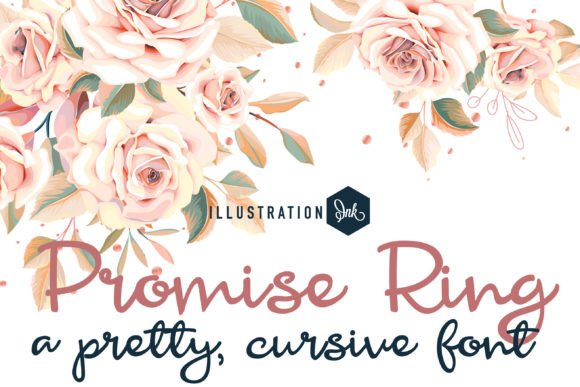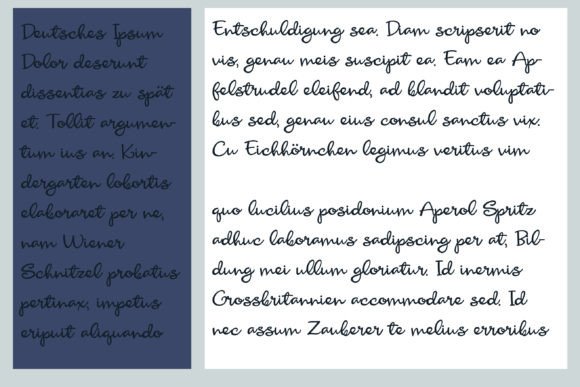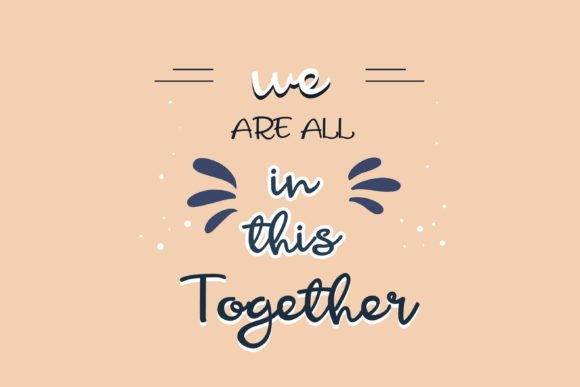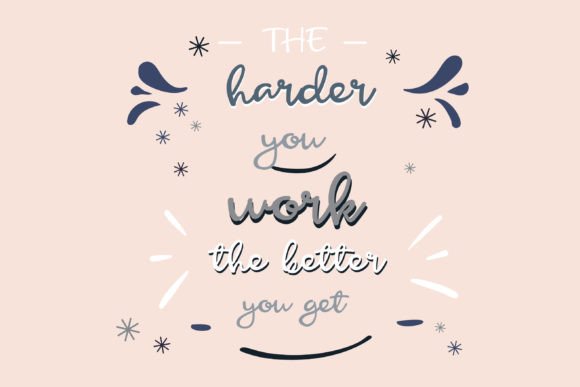
Promise Ring Font
About the Promise Ring Font
Introducing the Promise Ring Font, a beautifully crafted typeface designed to elevate your creative projects. This hand-written font is a pretty cursive with a bit of a casual feel. No matter the topic, this font will be an incredible asset to your fonts’ library, as it has the potential to elevate any creation.
Bold, Light, Stencil, and Highlighted versions are included.
Promise Ring Font’s casual, handwritten style works best for headlines, short text blocks on invitations or cards, and branding elements where a friendly, approachable feel is desired. It excels in projects emphasizing personality and warmth, such as wedding stationery, craft businesses, or social media graphics. However, its cursive nature makes it less suitable for body text, long paragraphs, or UI elements where legibility is paramount.
The font’s inherent playfulness is balanced by its clear letterforms, making it surprisingly versatile. Pair it with a clean sans-serif like Open Sans for a contemporary feel, or a classic serif like Garamond for a more traditional touch. For a bolder contrast, consider a geometric sans-serif such as Montserrat. Using the stencil version can add a fun, vintage twist when paired with a script font like Great Vibes.
Its overall personality is best described as friendly and approachable, with a touch of casual elegance. The included weight variations (Bold, Light, etc.) offer significant control over the level of emphasis within a design.
Promise Ring Font Usage Examples
Promise Ring Font Example